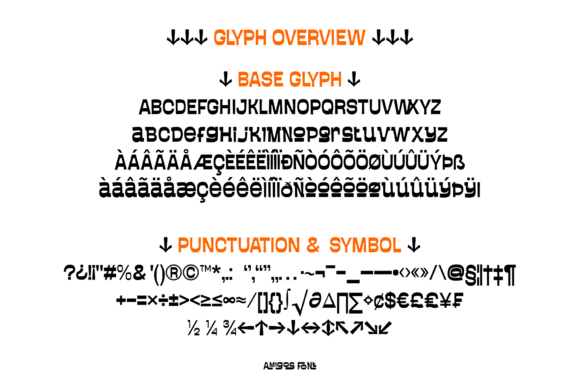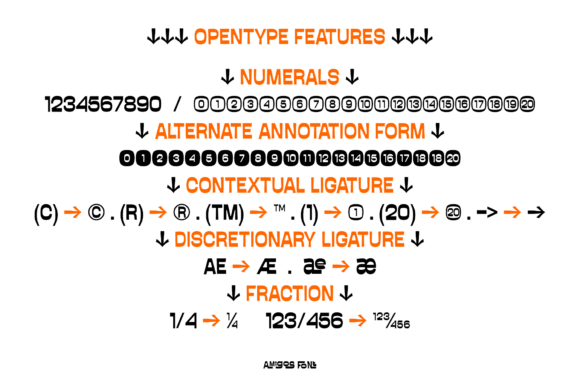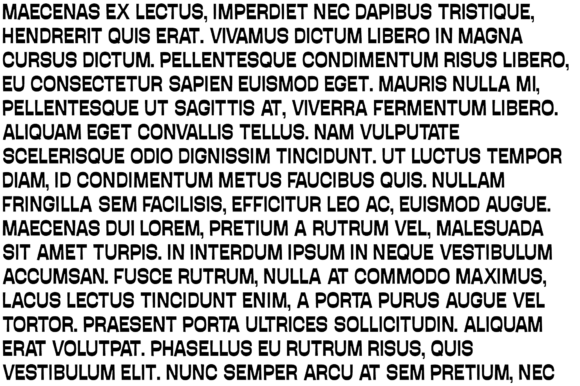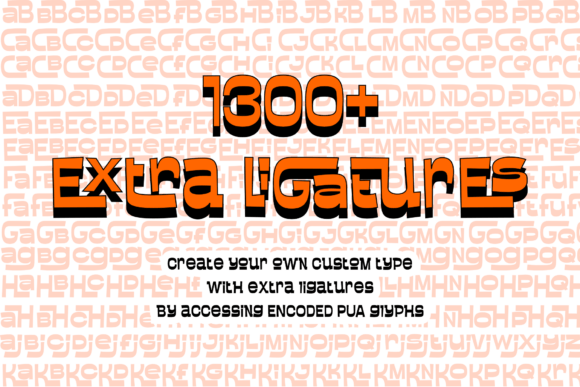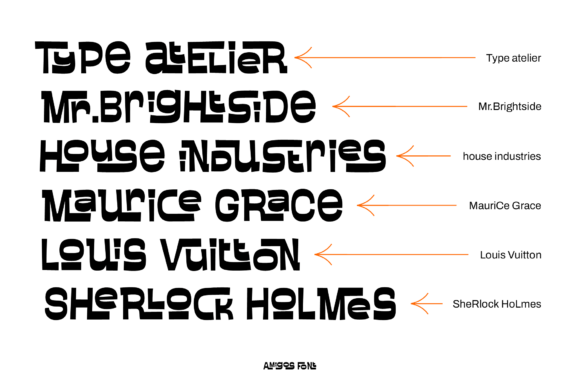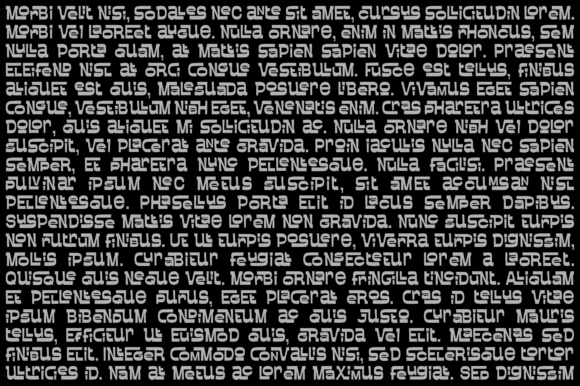
The Perfect Blend of Retro Charm and Modern Flair
Have you ever stumbled upon an old vintage poster or a classic movie title and been instantly captivated by its unique charm? That’s the magic of mid-century design, and it’s a feeling that can be replicated with the right typography. For designers looking to add a touch of nostalgia to their projects, the Amigos Liga Font is the perfect tool to evoke that sense of retro charm.
This vintage retro display font is designed to capture the bold, playful spirit of mid-century design, making it ideal for standout headlines, logos, or branding that needs a fun, retro flair. With its unique ligatures and quirky details, Amigos Liga Font adds character to any project, blending vintage appeal with a modern twist.
Amigos Liga Font Key Features
- Font Family: Amigos Liga Font is a modern sans-serif font family designed for digital use.
- Size: The font family includes 12 weights (Thin to Black) with matching italics, offering a wide range of design possibilities.
- Unique Characteristics: Amigos Liga Font features a clean, geometric design with a friendly and approachable feel, making it suitable for a wide range of applications, from corporate branding to editorial content.
Amigos Liga Font Review
Amigos Liga Font is a unique and playful font that can add a lot of character to your design projects. Here are some of the things that work well:
- ✨ Expressive and energetic feel, perfect for branding and marketing materials
- ✨ Well-suited for digital use, with clear and readable text at various sizes
- ✨ Unique ligatures and letter combinations that can add a touch of personality to your designs
- ⚠️ Limited support for non-Latin scripts and languages, which may be a concern for international projects
- ⚠️ May not be suitable for formal or professional applications, due to its playful and casual nature
- ⚠️ Some users may find the font to be too bold or overwhelming, particularly in large quantities
In terms of overall impression, I think Amigos Liga Font is a great choice for designers who want to add a bit of whimsy and personality to their projects. It’s perfect for branding and marketing materials, but may not be the best fit for more formal or professional applications. With some careful consideration of its limitations, Amigos Liga Font can be a great addition to your design toolkit.
Tip: Use Amigos Liga Font for headings and titles to add a playful touch to your designs.
Tip: Use Amigos Liga Font in combination with bold and italic styles to create visually appealing text effects.
Tip: Use Amigos Liga Font for body text to create a consistent and professional look.
Amigos Liga Font is suitable for:
- Playful branding and marketing materials.
- Children’s educational materials.
- Food and beverage packaging.
Amigos Liga Font is a popular font choice for designers, but there are several alternatives that offer unique characteristics and uses. Here are three alternatives to consider:
1. Josefin Sans
Josefin Sans is a modern sans-serif font that offers a clean and elegant look. It’s perfect for use in digital designs, such as websites and mobile apps, where a clear and easy-to-read font is essential. Compared to Amigos Liga Font, Josefin Sans has a more minimalist approach, making it ideal for designs that require a simple and unobtrusive font.
Lato is a sans-serif font that offers a unique blend of modern and traditional elements. It’s a great choice for use in branding and marketing materials, as it’s highly legible and versatile. Compared to Amigos Liga Font, Lato has a more geometric approach, making it ideal for designs that require a strong and modern look.
Is Amigos Liga Font available in different weights and styles?
Yes, Amigos Liga Font is available in various weights and styles, including light, regular, medium, bold, and italic. You can use these weights and styles to create visual hierarchy and emphasis in your design. For example, you can use the bold weight for headings and the regular weight for body text.